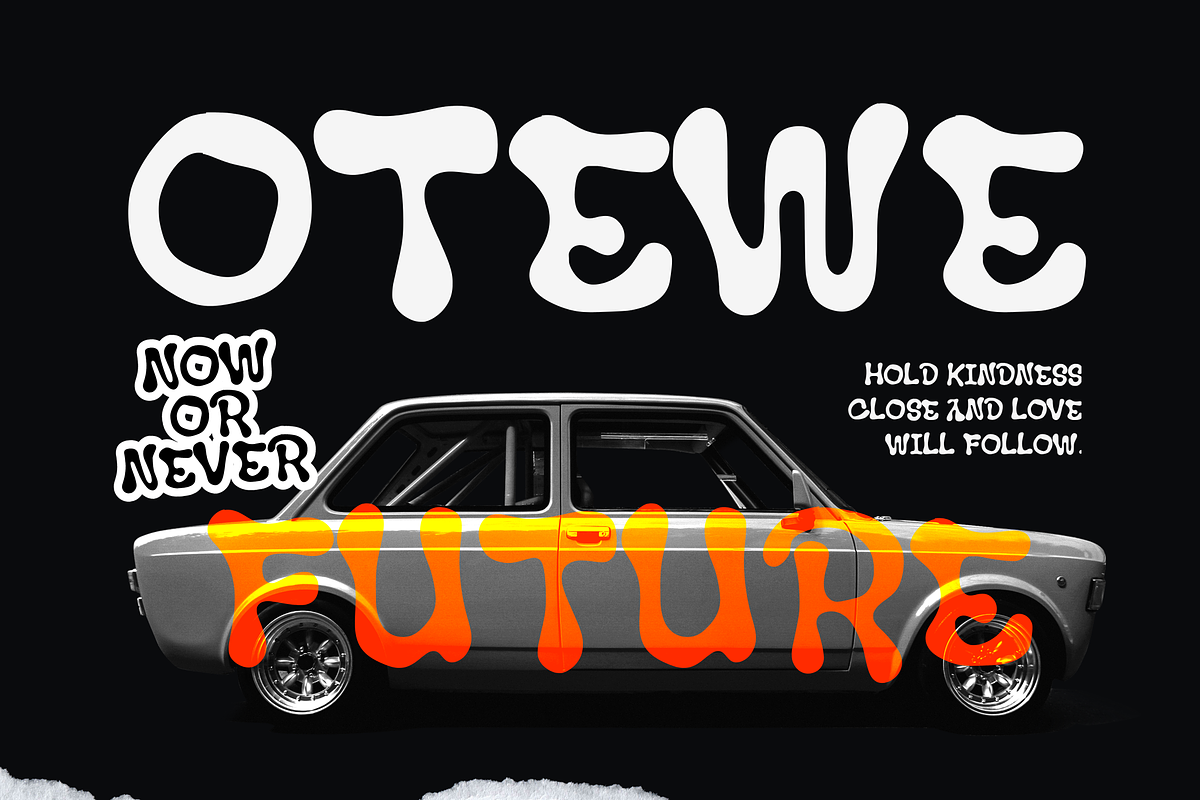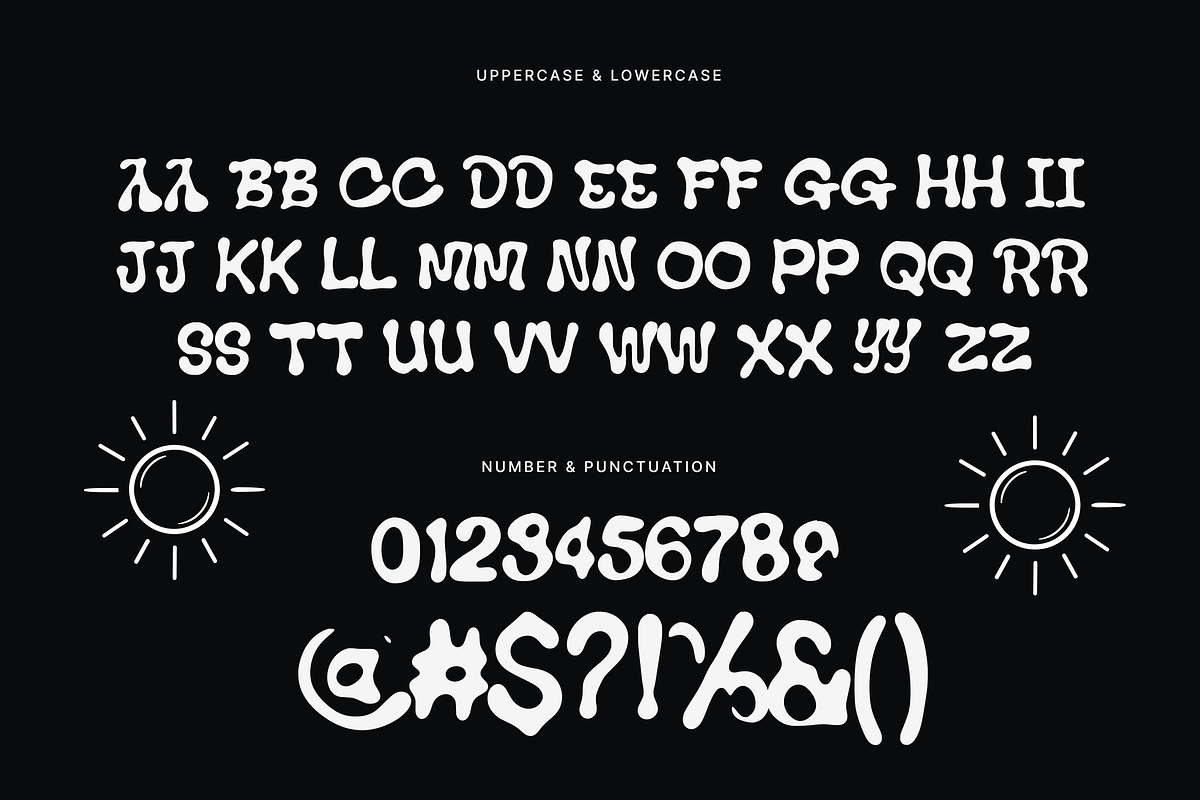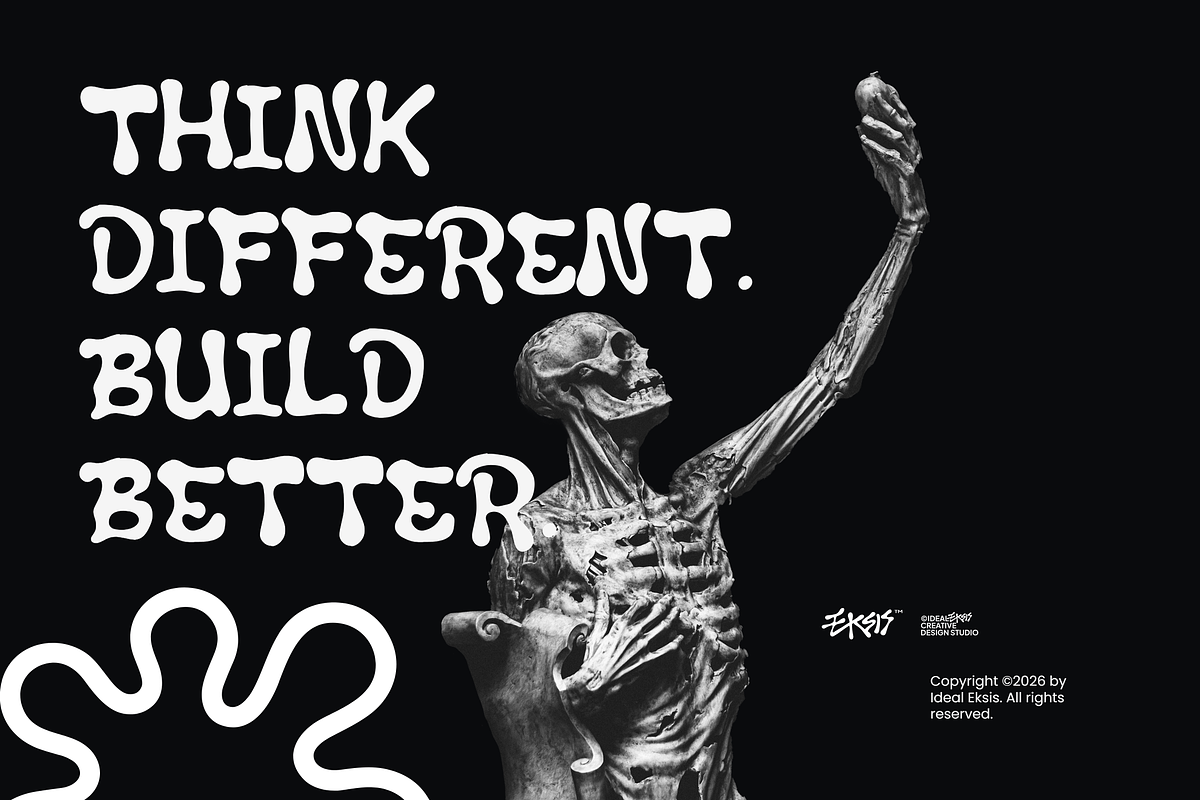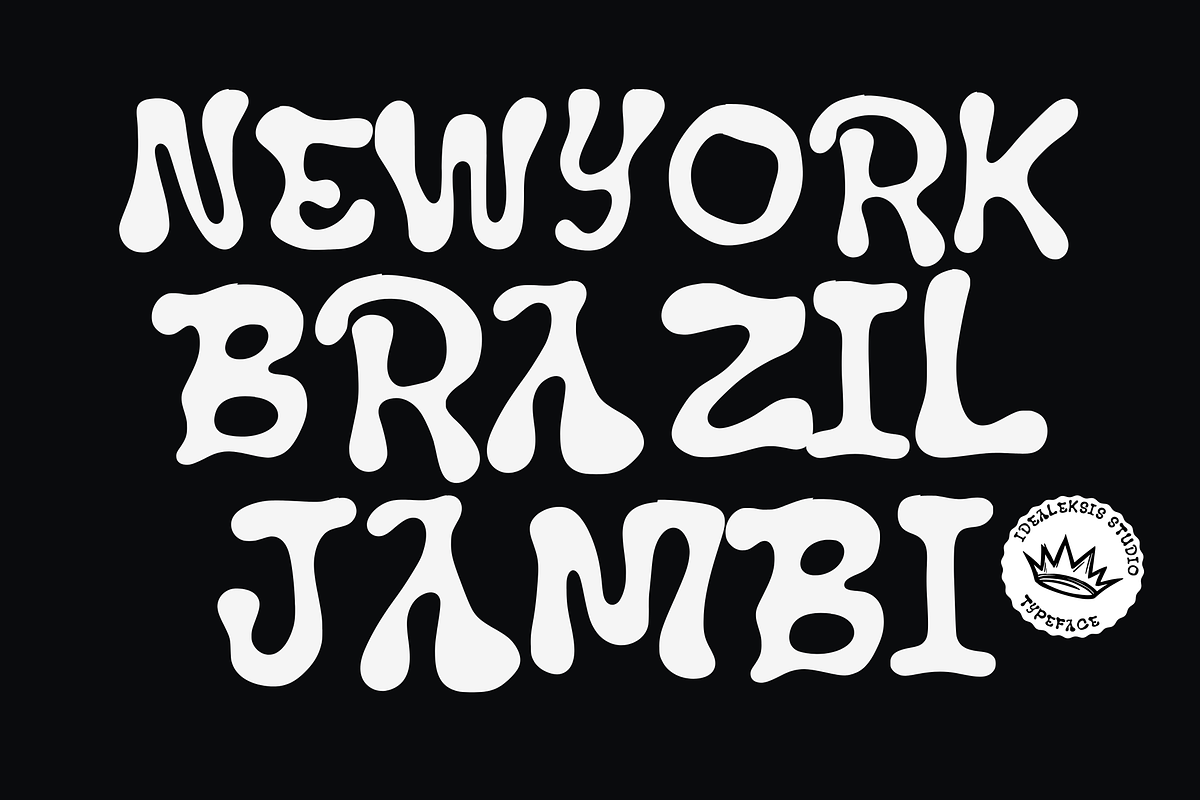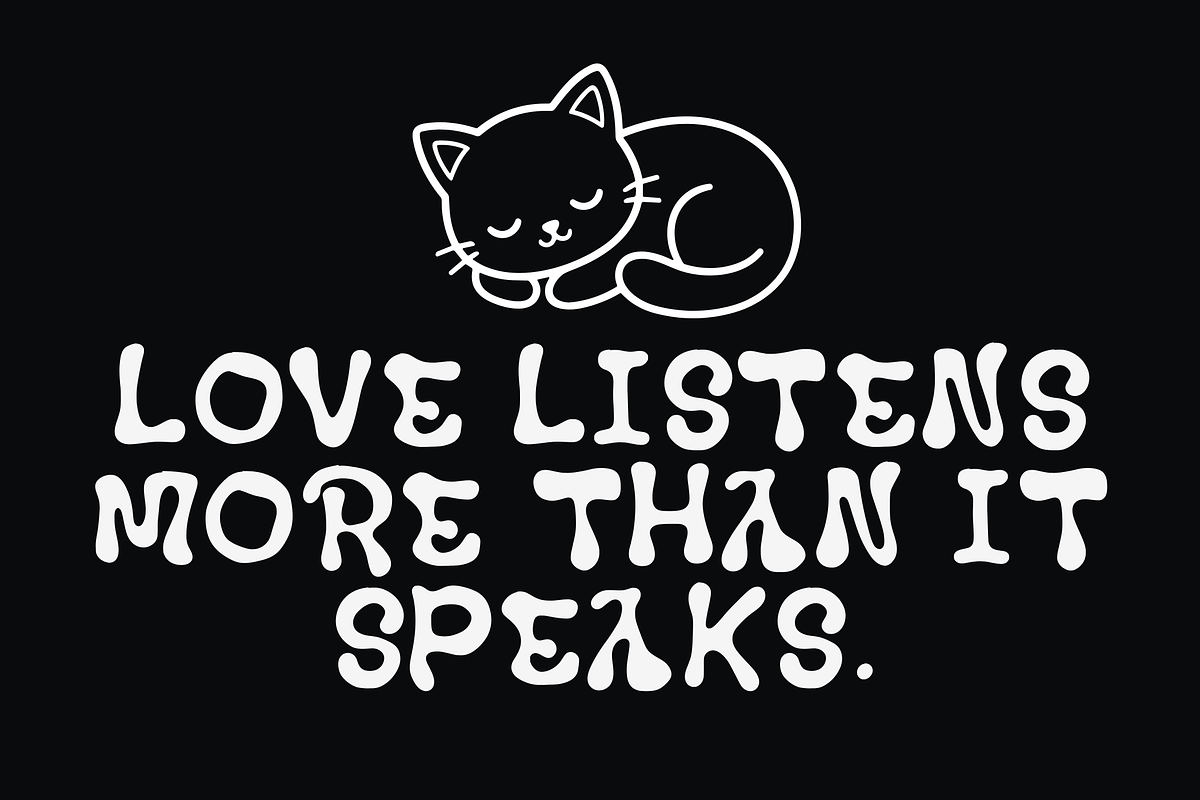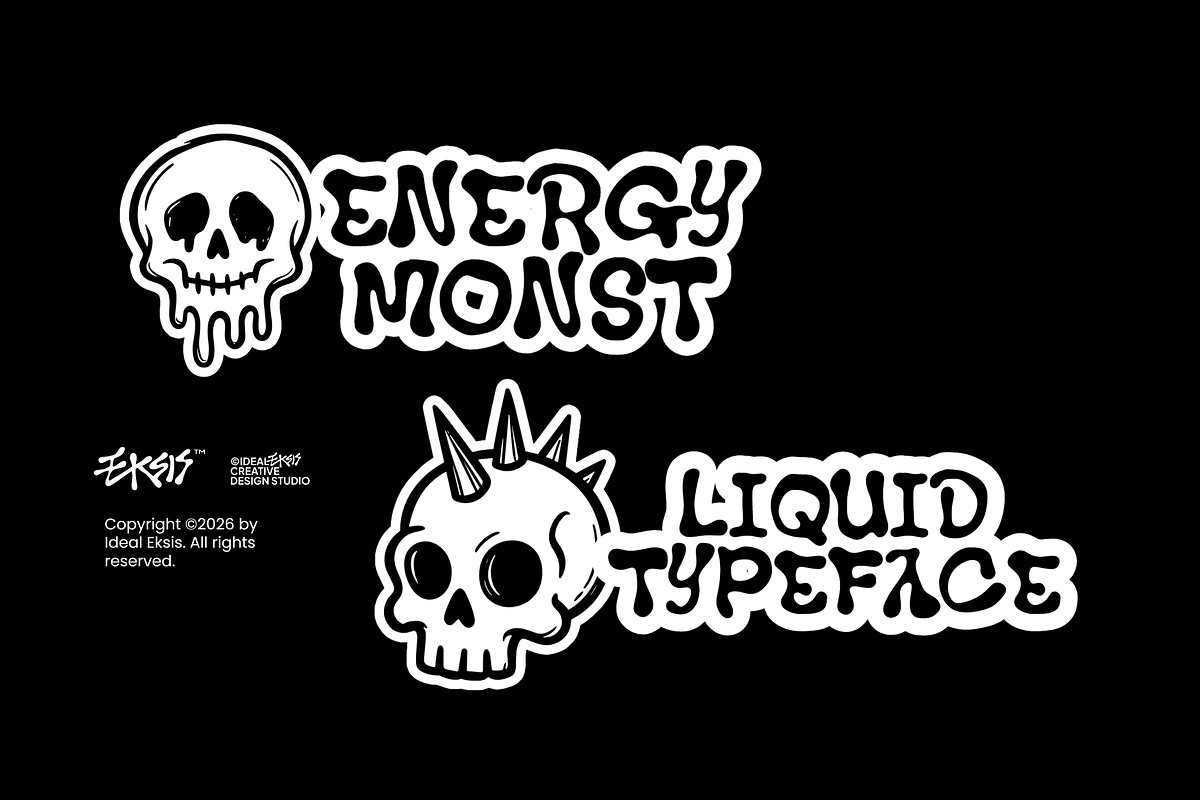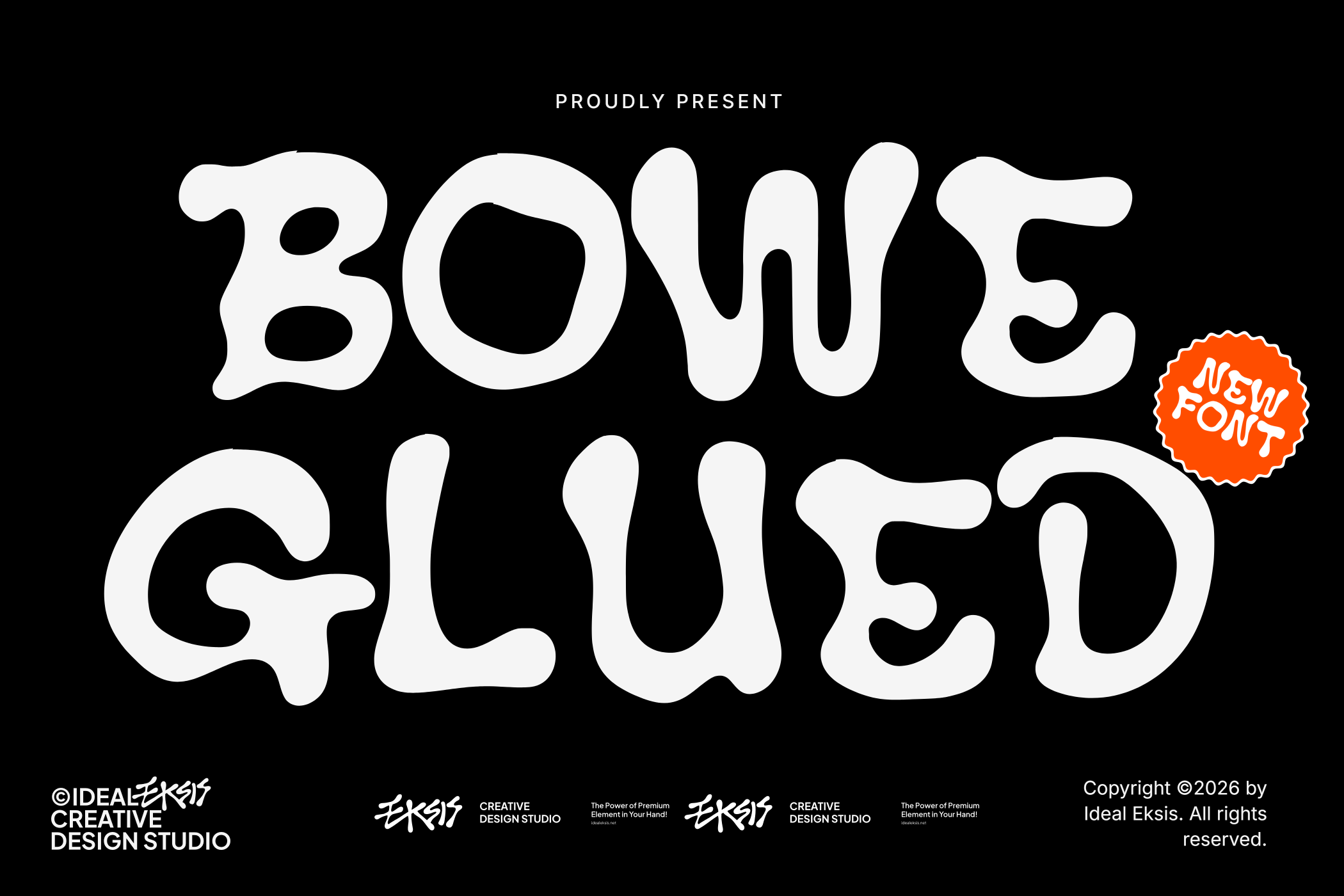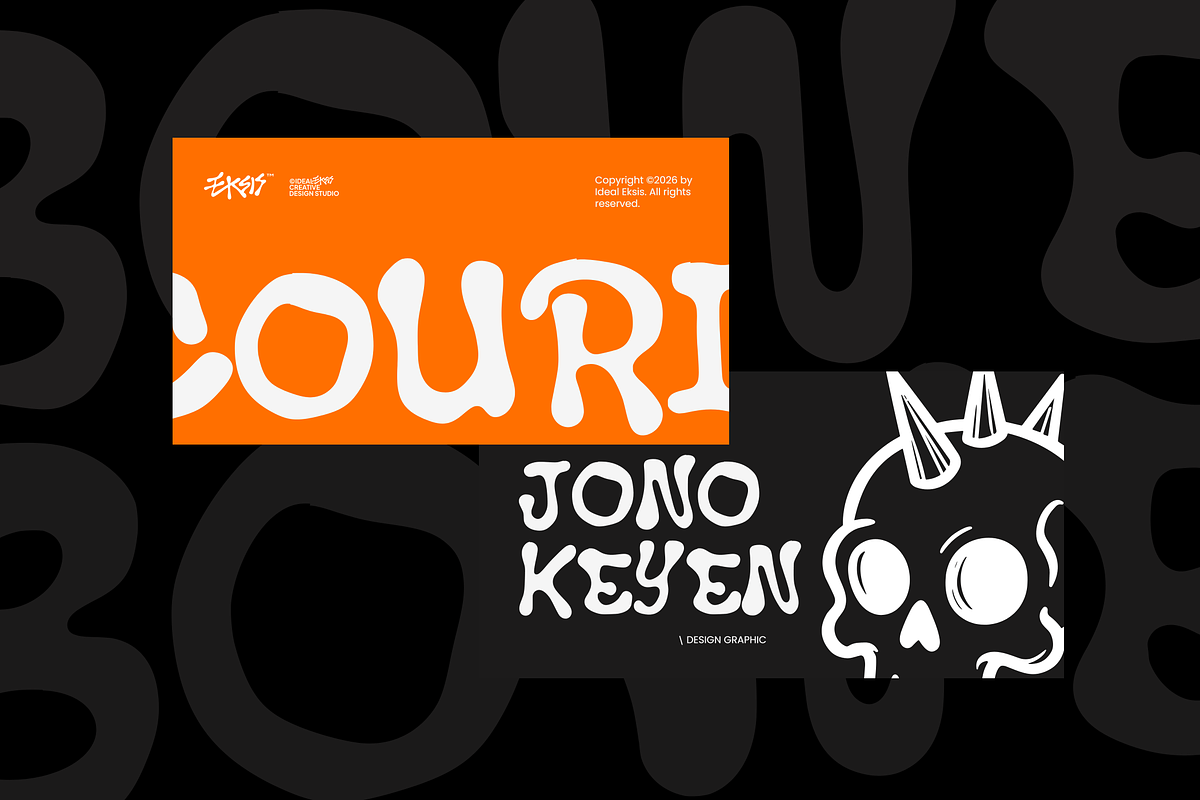
Bowe Glued - Liquid Display Typeface
A bold, playful display typeface featuring fluid, melting letterforms with a distinct psychedelic, liquid-like aesthetic. The characters exhibit soft, rounded edges, organic curves, and a heavy weight that gives them a squishy, inflated appearance. The wavy contours and distorted proportions evoke a retro, trippy vibe reminiscent of 1970s counterculture design. Ideal for eye-catching headlines, poster designs, branding, and creative packaging where a fun, unconventional, and expressive look is desired.
+ Uppercase (All Caps)
+ Numerals
+ Punctuation